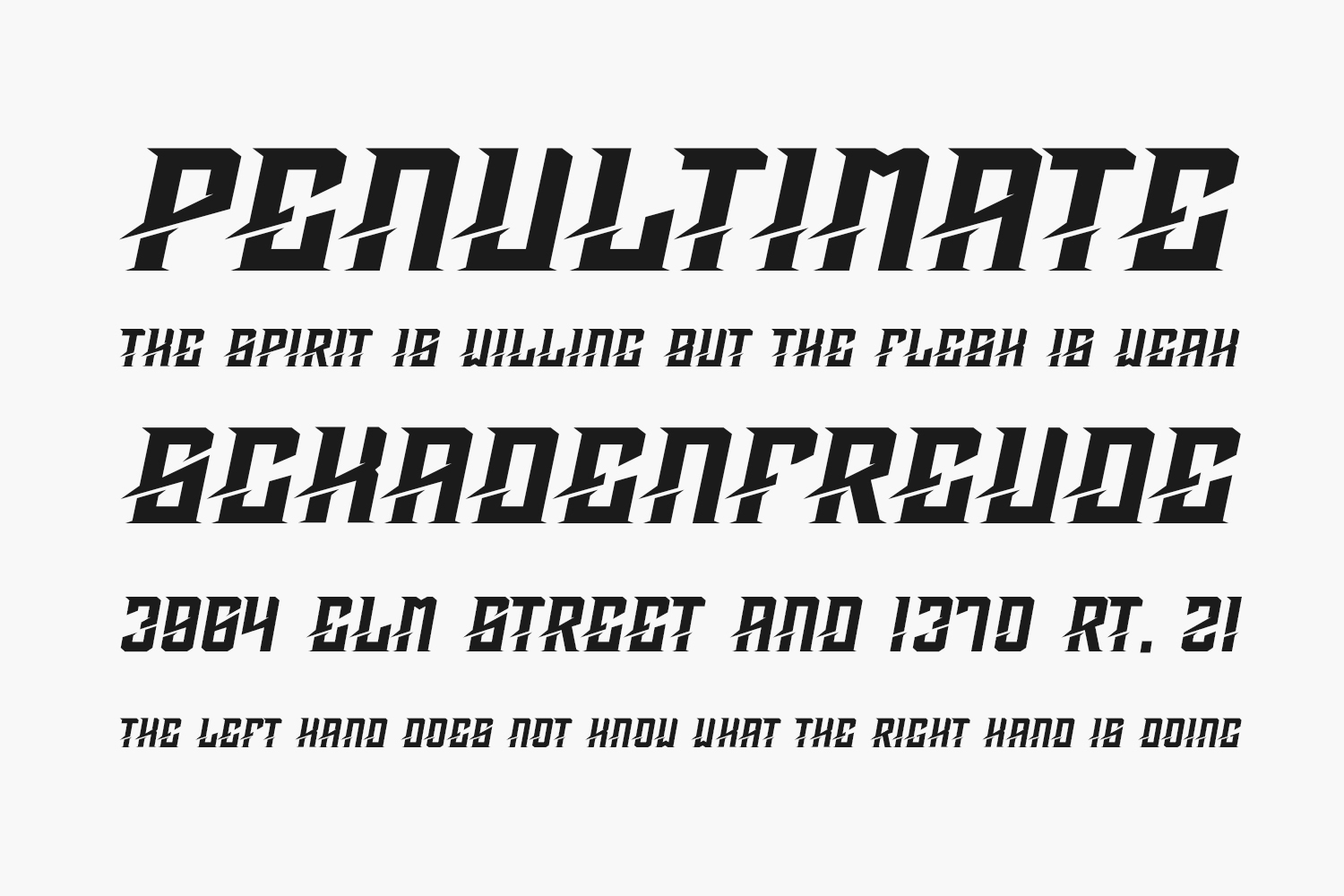
Samehada is a powerful and distinctive display font designed by Albert Kalingga to deliver strong visual impact across branding, apparel, and promotional materials. With its sharp letterforms and rugged aesthetic, this free font works perfectly for creating bold logos, t-shirt prints, and high-energy sports graphics. Available in both TTF and OTF formats, Samehada is ideal for designers seeking an expressive typeface that stands out in print and digital media.
Why Choose Samehada?
- Bold & Authentic Style: Combines strength with personality for a unique visual identity.
- Ideal for Apparel Design: Perfect for t-shirts, hoodies, and streetwear labels needing a strong typographic presence.
- Sport Branding Ready: Works great for team logos, gym brands, or athletic merchandise design.
Where to Use Samehada?
Samehada shines in high-impact visual projects:
- T-Shirt Printing: Ideal for front prints, slogans, or back-of-shirt typography with bold presence.
- Sports Logos & Jerseys: Adds intensity to team logos, fitness brand identities, and sportswear design.
- Packaging & Labels: Great for product branding where loud, attention-grabbing text is needed.
- Poster & Billboard Design: Designed for large sizes — makes headlines pop in outdoor advertising.
- Streetwear & Urban Branding: Brings attitude to clothing lines, skate culture visuals, and lifestyle brands.
Design Tips with Samehada